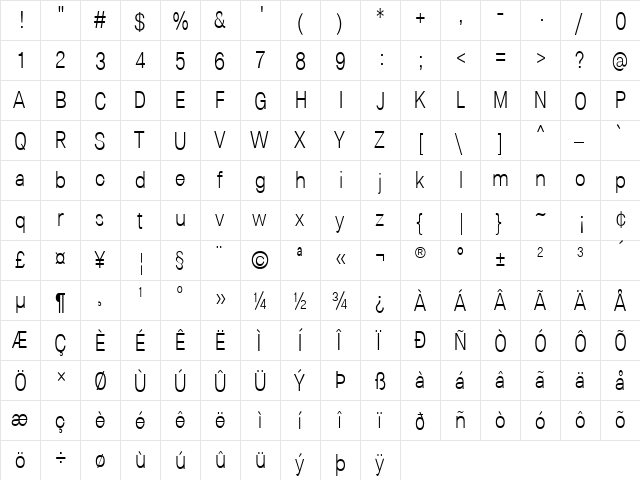
Lunchtype25 Condensed Light
Design Context for Lunchtype25 Typeface
Lunchtype25 is a composed and adaptable typeface that performs quietly and consistently across a wide range of design contexts. The delicate stroke weight brings airiness and refinement to layouts. Its narrow stance lets it pack a punch even in space-constrained designs.